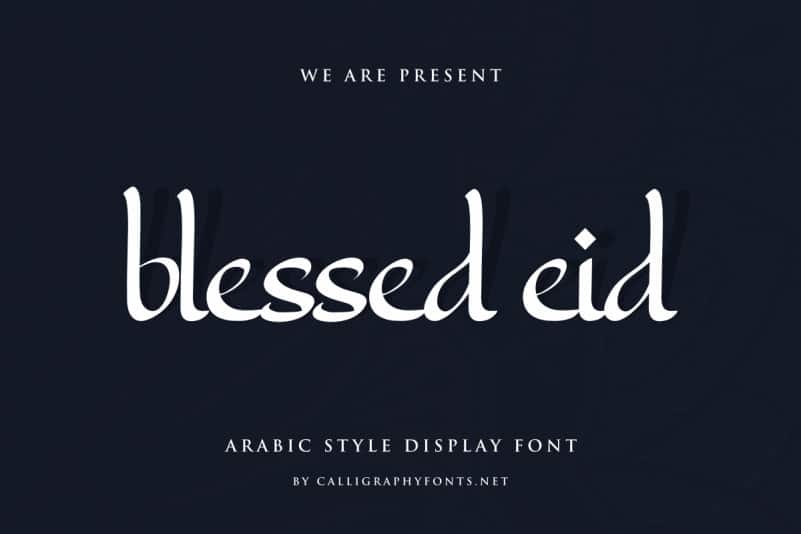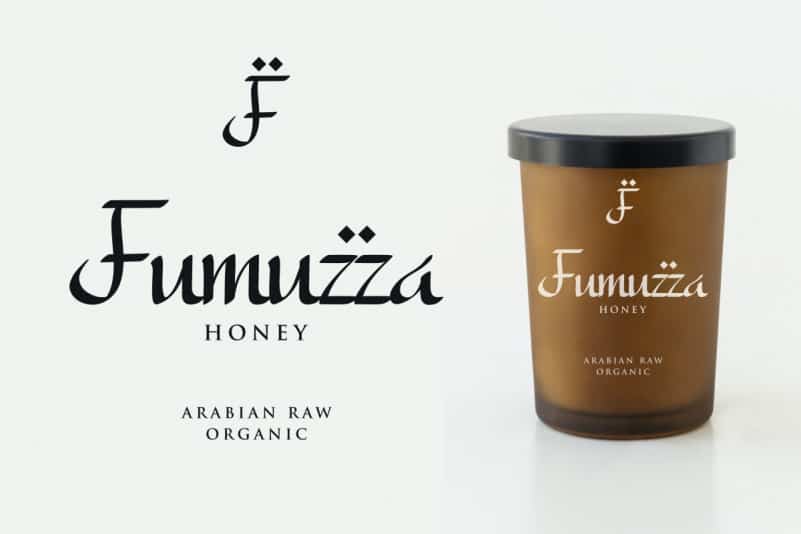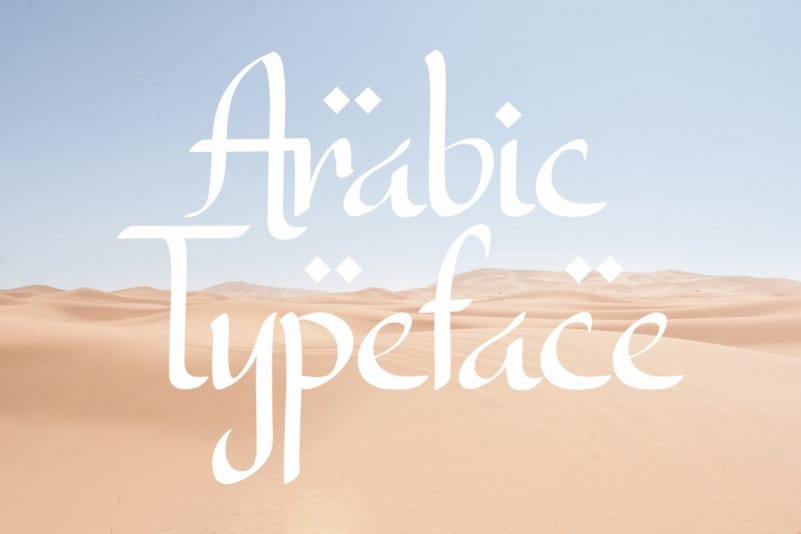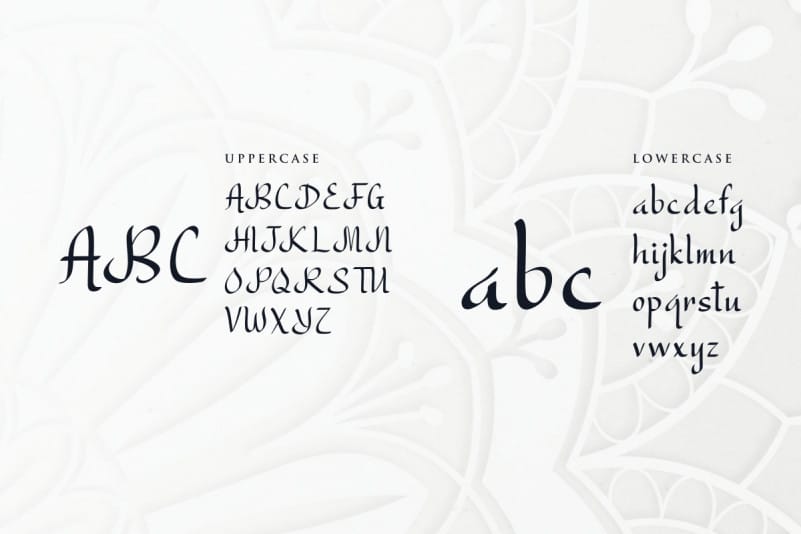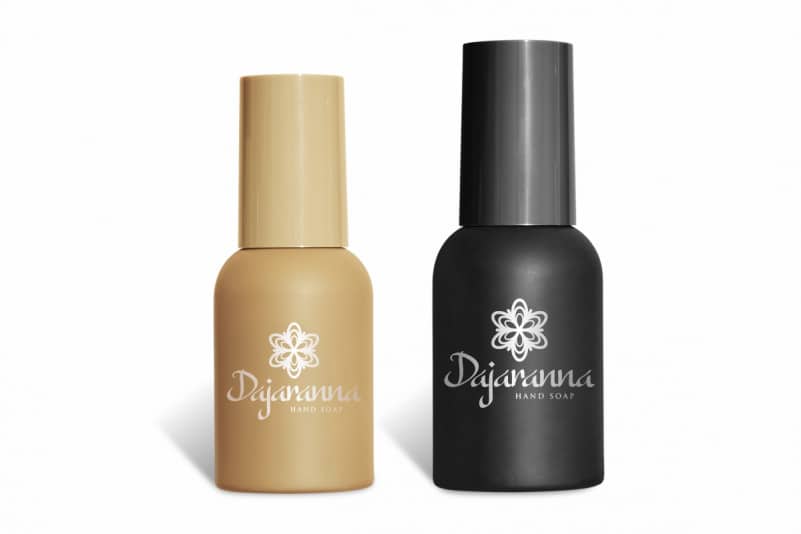
Blessed Eid Arabic Style Font
Blessed Eid Arabic Style Font is a arabic style display Calligraphy script typeface. The style of this font are elegant, luxury, glamour, modern and sophisticated brush pen.